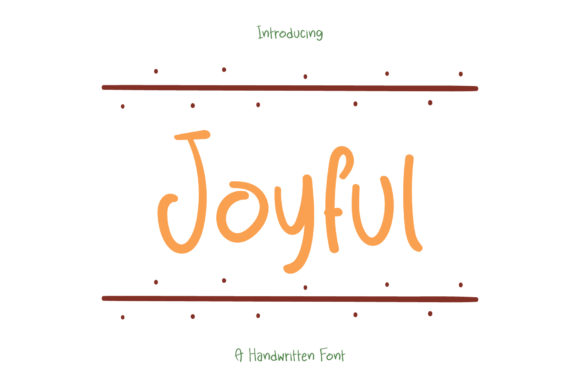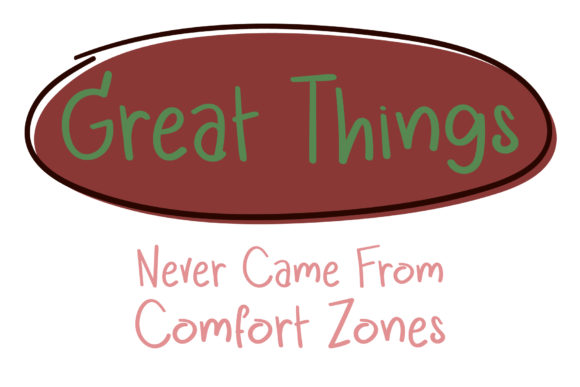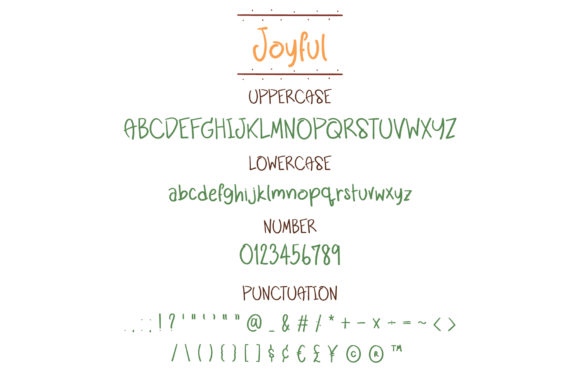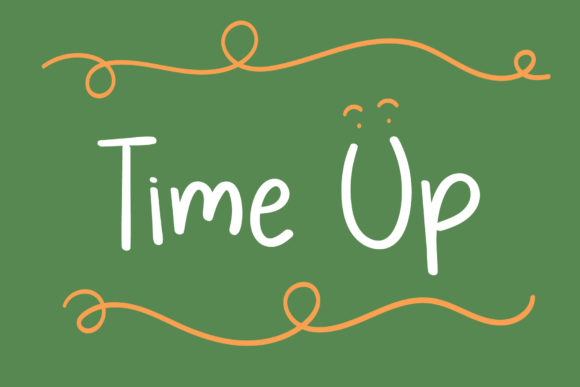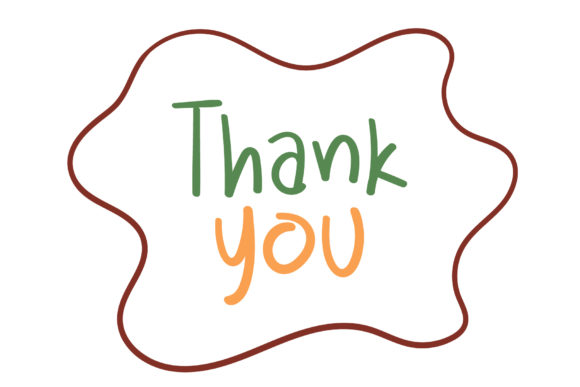
Joyful Font
About Joyful Font
Joyful is a sweet and quirky handwritten font. Fall in love with its incredibly versatile style and use it to create gorgeous wedding invitations, beautiful stationary art, eye-catching social media posts, and much more!